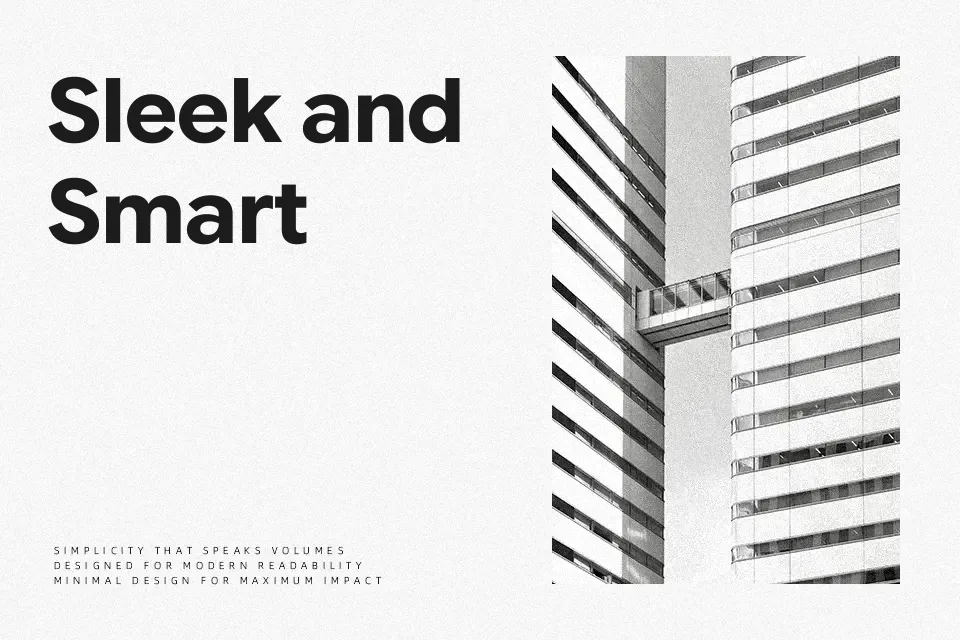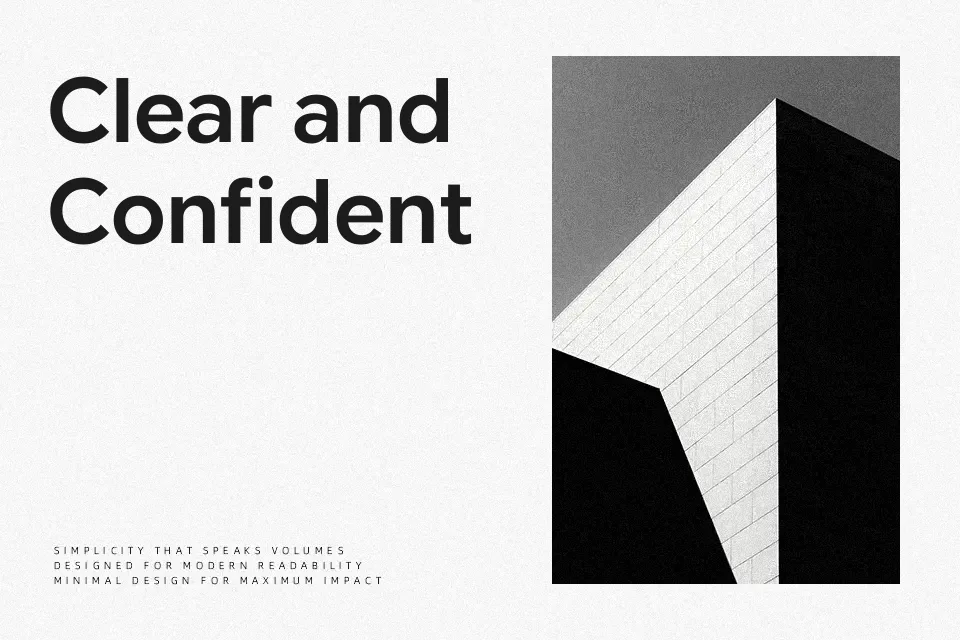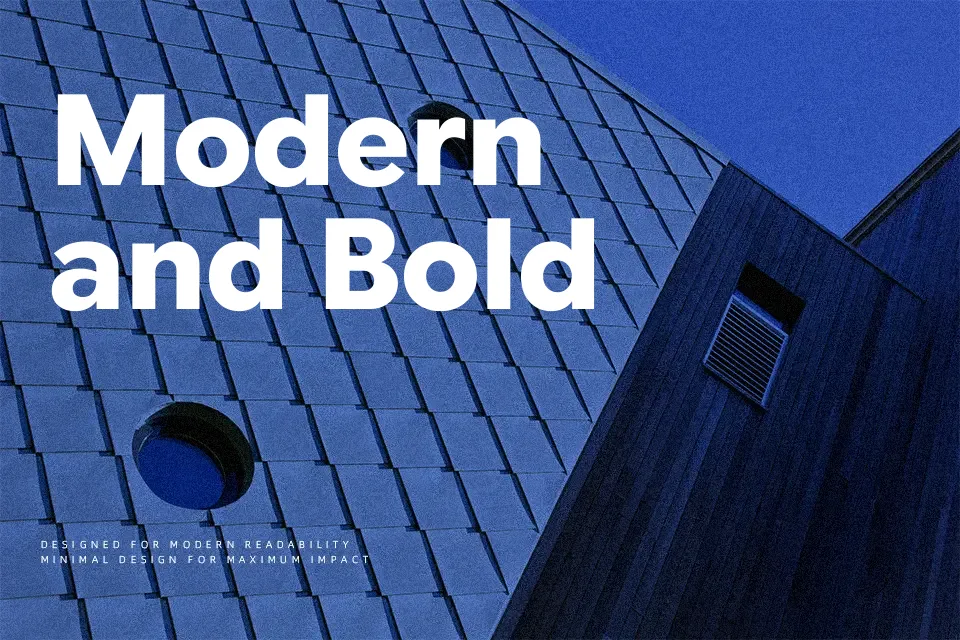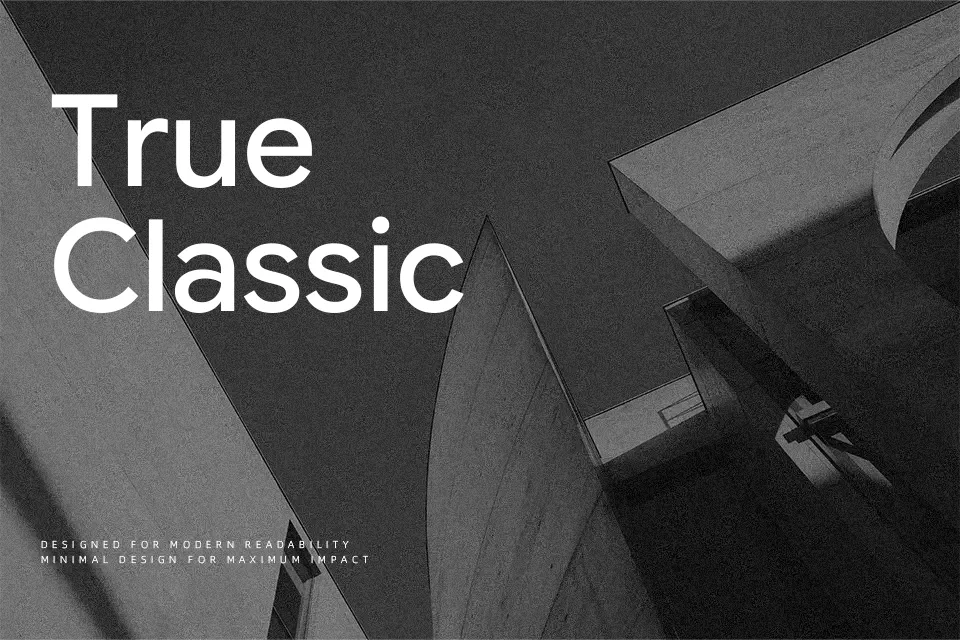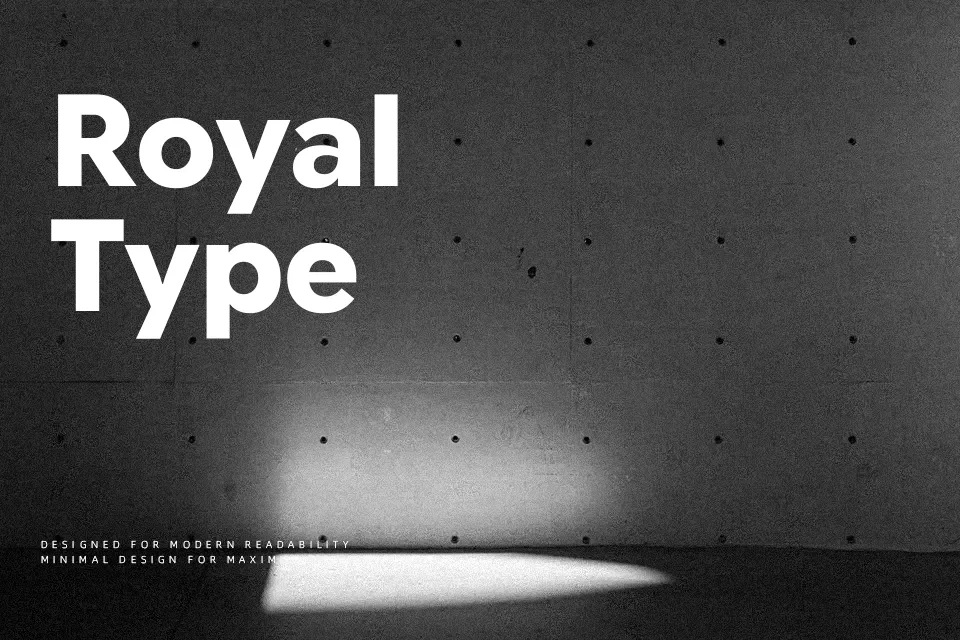
Google Sans Flex Font
Google Sans Flex is a geometric sans serif variable font designed to handle many roles in a single type system, from slim captions to dense dashboards. Strokes are clean and even, with controlled contrast, generous counters, and carefully balanced spacing that keeps text readable at small sizes while still looking brisk in bold display weights. Because it offers axes for weight, width, optical size, slant, and even rounded terminals, you can tune it from crisp and technical to slightly softer and more approachable without switching families. In practice, it shines in product UIs, design systems, data-heavy web apps, and brand ecosystems that need one flexible voice, but it can feel too utilitarian for expressive posters or highly characterful logos. If you’ve used workhorses like other modern geometric sans serif web fonts, this feels like a more engineered, system-focused evolution rather than a showy display face.
Perfect for body text, branding, and headline, with a clean and geometric style.